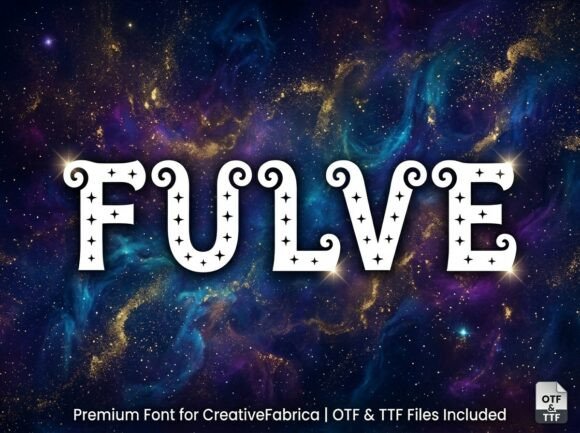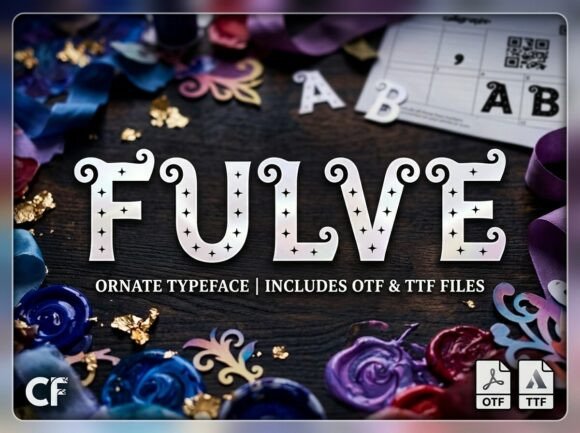
Introducing Fulve Font: The Ultimate Decorative Display Font for Creators
Are you tired of using the same old fonts for your designs? Look no further! Fulve Font is a stunning decorative display font that is sure to grab attention and take your creations to the next level. With its unique artistic elements and strong visual personality, this font is perfect for designers, crafters, and creators who want to break away from the ordinary.
What Makes Fulve Font Special?
Fulve Font is a versatile font that can be used for a variety of design projects, including bold headlines, artistic logos, and creative packaging. Its professional and polished finish ensures that your designs will look sleek and sophisticated, while its unique artistic elements will set your work apart from the crowd.
Before purchasing Fulve Font, it’s essential to note that this font is an ALL-CAPS (Uppercase Only) display typeface. This means that it does not include lowercase letters, making it specifically designed for high-impact headlines, logos, and decorative initials where every letter is a work of art.
Use Cases for Fulve Font
Fulve Font is perfect for a variety of design projects, including:
- Headlines and Titles: Use Fulve Font to create bold and eye-catching headlines that grab attention and draw the reader in.
- Logos and Branding: Create a unique and memorable logo for your business or brand with Fulve Font’s artistic and decorative elements.
- Packaging and Product Design: Add a touch of elegance and sophistication to your product packaging with Fulve Font’s professional and polished finish.
- Signage and Displays: Use Fulve Font to create eye-catching signage and displays that showcase your message in a bold and creative way.
Tips for Using Fulve Font
To get the most out of Fulve Font, here are a few tips to keep in mind:
- Use it sparingly: Due to its bold and decorative nature, it’s best to use Fulve Font sparingly to avoid overwhelming the reader.
- Pair it with a simple font: Pair Fulve Font with a simple and clean font to create visual contrast and make your design more readable.
- Experiment with colors and textures: Fulve Font looks great in a variety of colors and textures, so don’t be afraid to experiment and find the perfect combination for your design.
Fulve Font is a stunning decorative display font that is perfect for creators who want to add a touch of elegance and sophistication to their designs. With its unique artistic elements, strong visual personality, and professional finish, this font is sure to grab attention and take your creations to the next level. So why wait? Purchase Fulve Font today and start creating stunning designs that showcase your creativity and style!